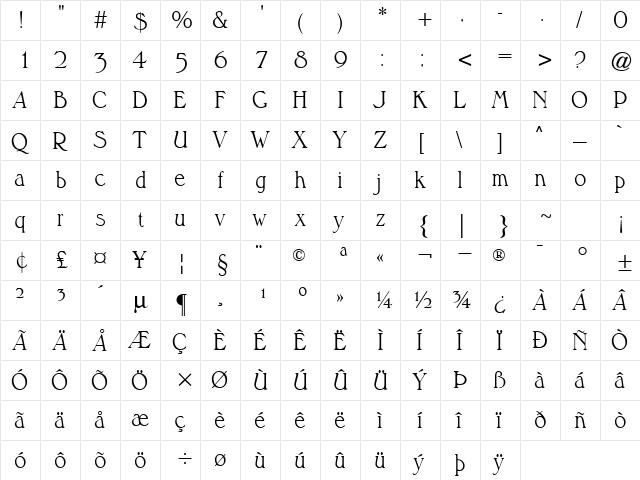
Musketeer Light Regular
Design Context for Musketeer Light Typeface
Musketeer Light is a composed and adaptable typeface that performs quietly and consistently across a wide range of design contexts. Its slender proportions lend an understated elegance to any composition.